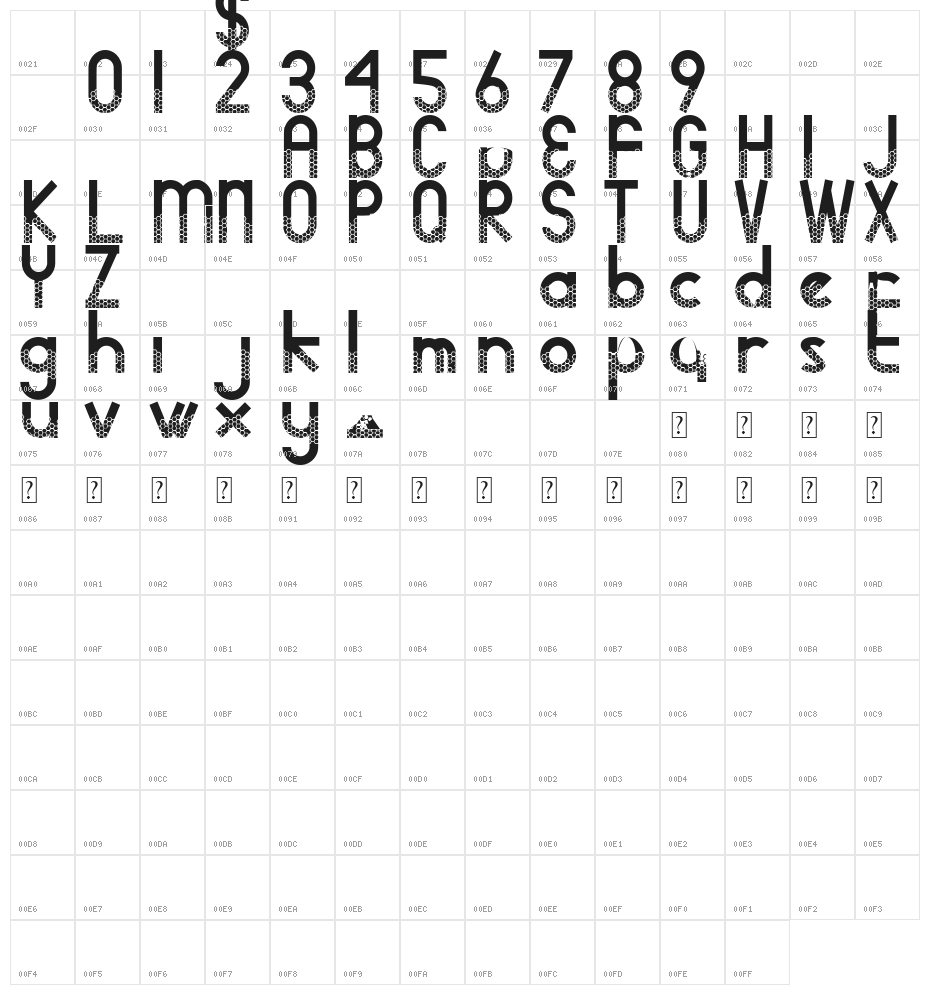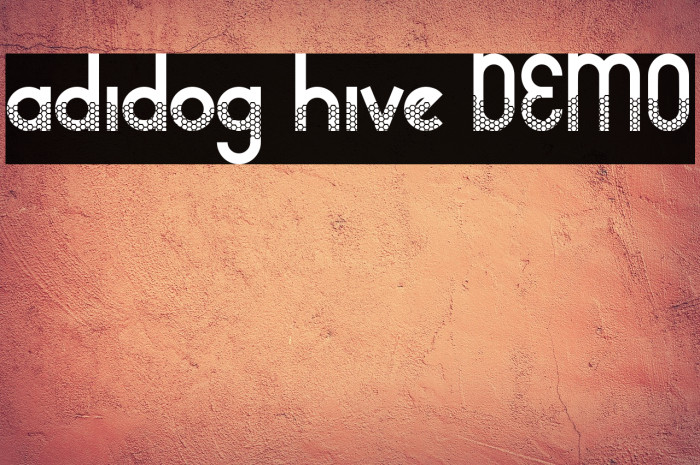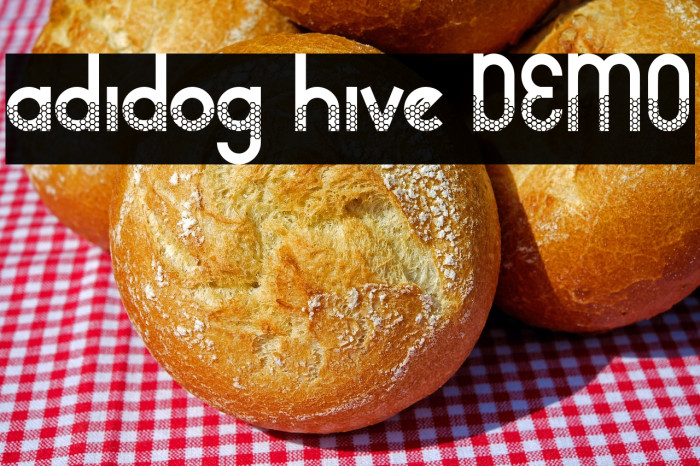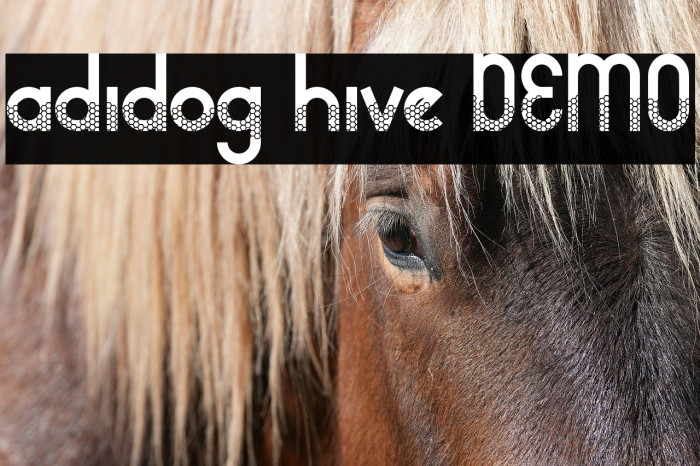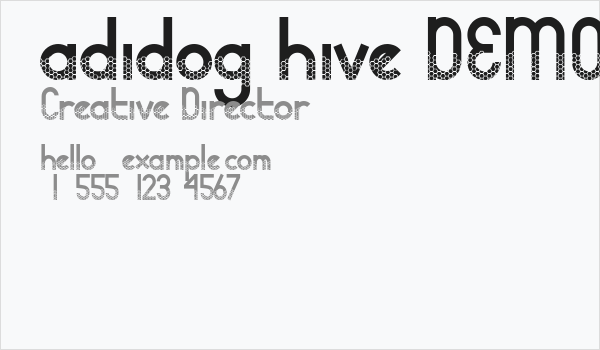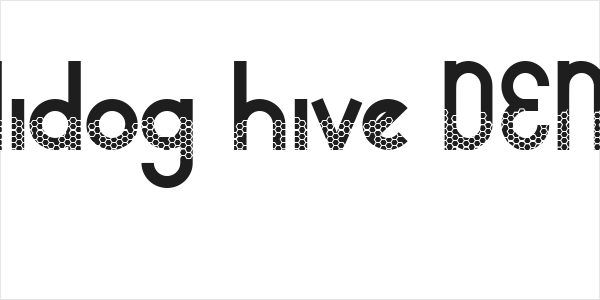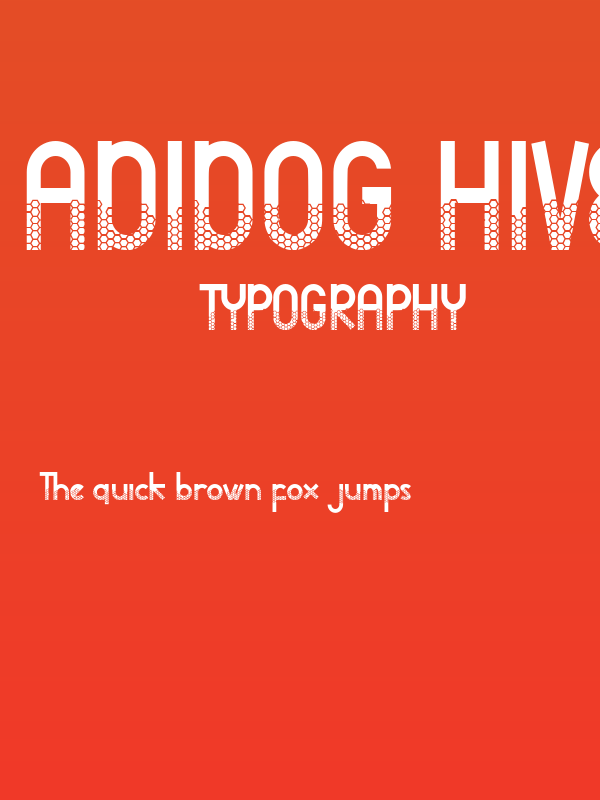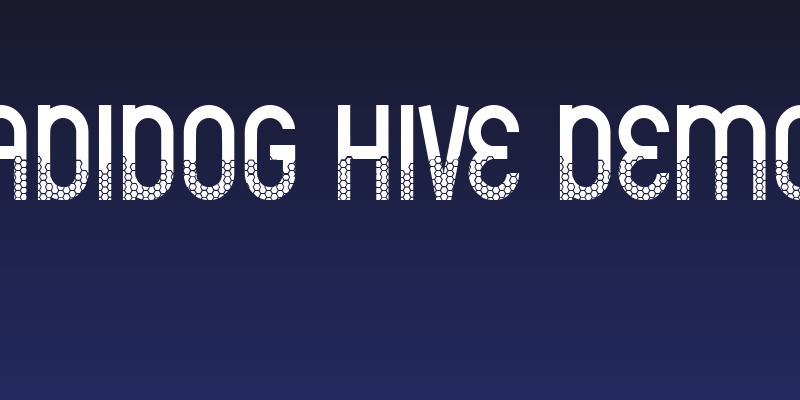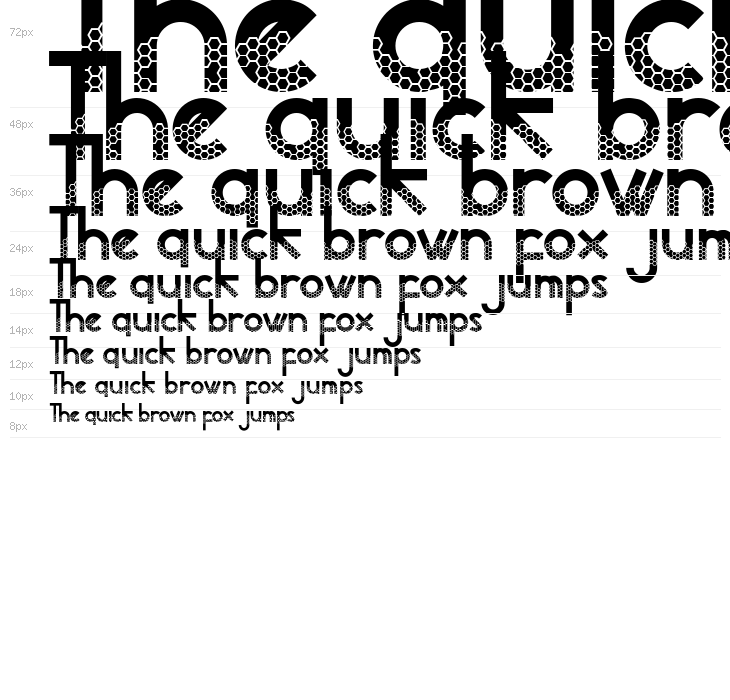
adidog hive DEMO Font
adidog hive DEMO Description
This font features a unique and eye-catching design with a honeycomb pattern integrated into the characters. The uppercase and lowercase letters, as well as numbers, are bold and have a modern, geometric style. The pattern adds a decorative touch, making it stand out for creative projects. The characters are evenly spaced, providing a balanced and cohesive look. This font is ideal for projects that require a distinctive and playful aesthetic.
| Use Case | Logos, Posters, Branding |
| Proposed Projects | Ideal for branding, posters, and creative designs that require a unique and modern look. |